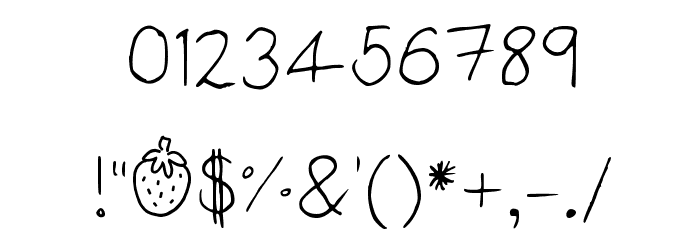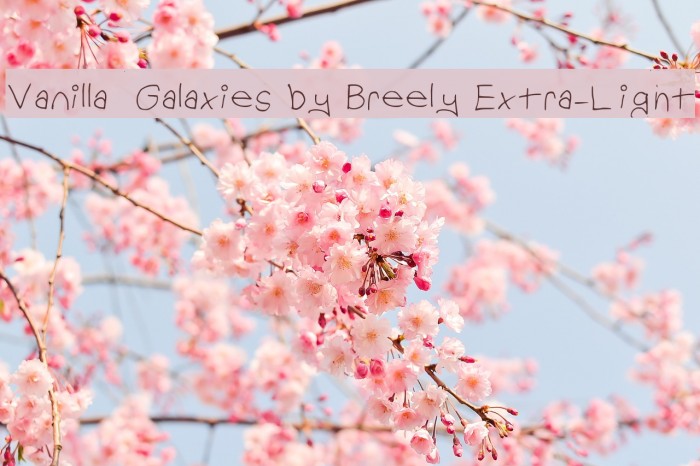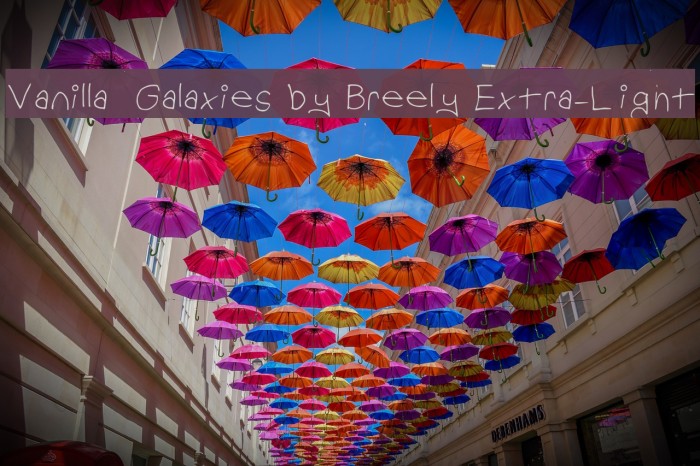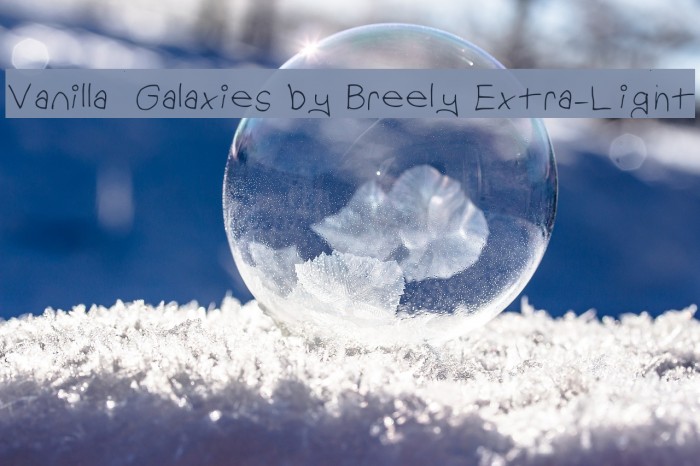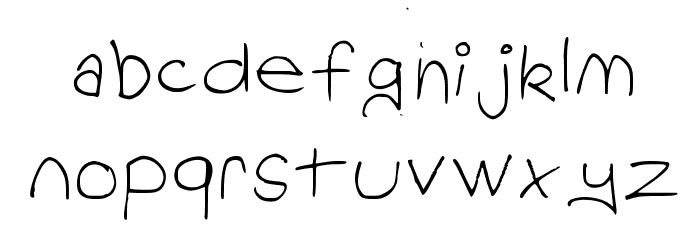
Vanilla Galaxies by Breely Extra-Light Font
Vanilla Galaxies by Breely Extra-Light Description
This font features a playful and whimsical design, characterized by its light and airy strokes. The letters are crafted with a casual, handwritten style that gives it a friendly and approachable feel. The uppercase letters are slightly taller and more elongated, while the lowercase letters maintain a consistent flow with gentle curves and loops. The numbers are clear and easy to read, matching the overall style of the alphabet. Special characters are included, adding versatility to the font's use. The overall appearance is clean and minimalistic, making it suitable for a variety of creative projects.
| Overall Style | Playful, Casual |
| Use Case | Headlines, Logos, Invitations |
| Proposed Projects | Ideal for children's books, greeting cards, playful branding, and casual invitations. |